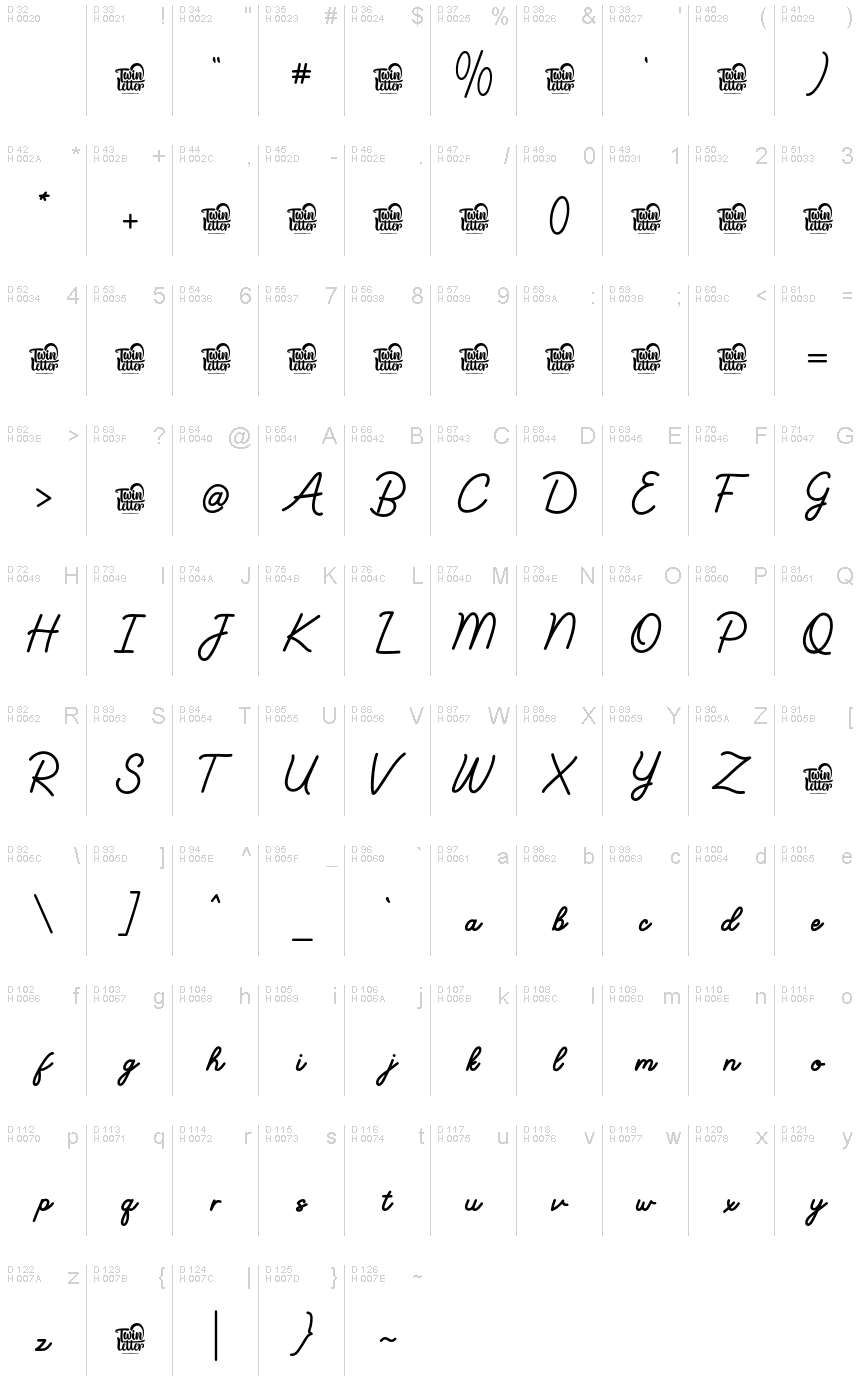
TherariaTrial-Regular
Theraria, crafted by Twinletter, exudes a personal touch with its handwritten style that brings warmth and character to the table. The font dances between casual elegance and playful freedom, capturing the essence of human touch in each curve and stroke. Its gentle irregularities echo the beauty of imperfection found in authentic handwriting, making it particularly inviting.
This font's aesthetic appeal lies in its ability to convey intimacy and individuality, making it a perfect choice for designs that require a personal, handcrafted feel. Ideal for invitations, branding projects, or editorial work where personality is key—Theraria has the versatility to add a distinctive human element to both digital and print mediums.